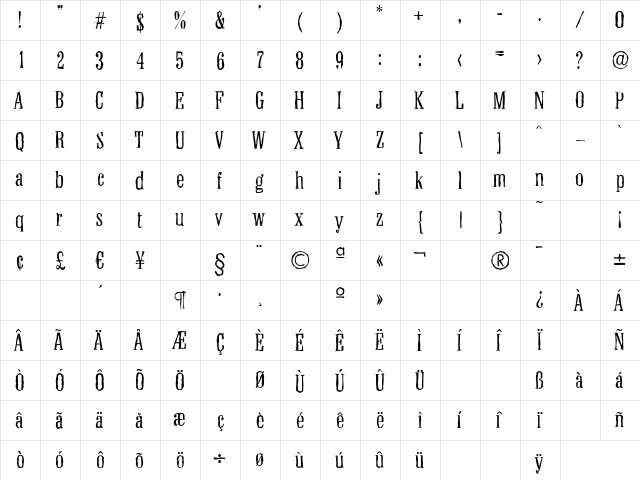
ColonelAntique-Light Regular
Design Context for ColonelAntique-Light Typeface
ColonelAntique-Light has the warm character of retro typography — evoking diners, record sleeves, and the golden age of print advertising. The delicate stroke weight brings airiness and refinement to layouts.
Font Pairing: Combine ColonelAntique-Light with a simple slab or neutral sans — period-accurate companions reinforce the vintage feel without competing for attention.
Pro Tip: Lean into ColonelAntique-Light's period character by pairing it with aged paper textures, muted colour palettes, and vintage illustration styles.